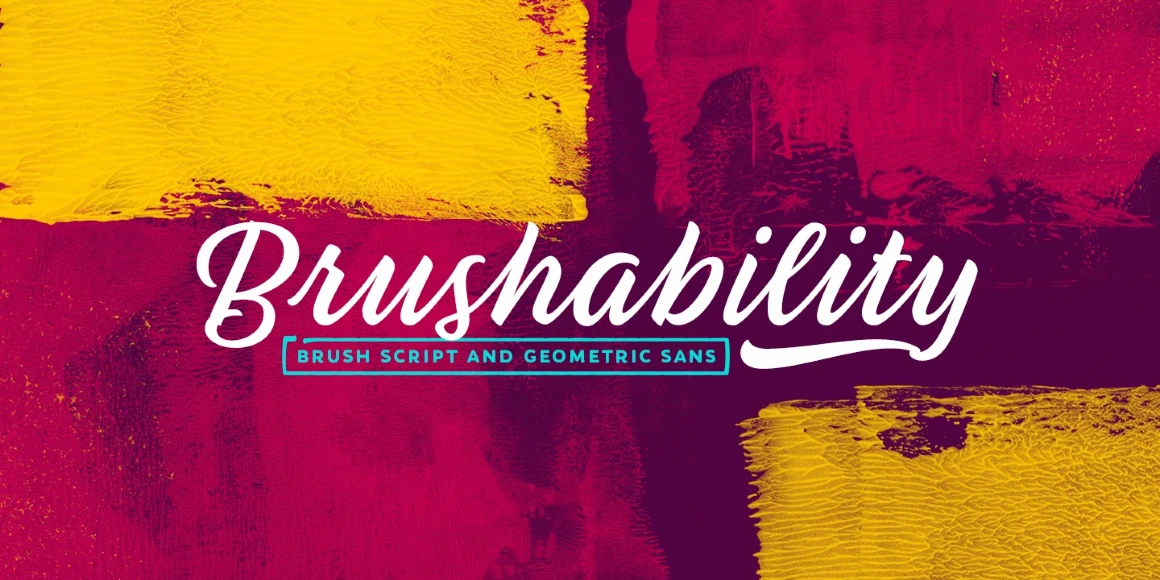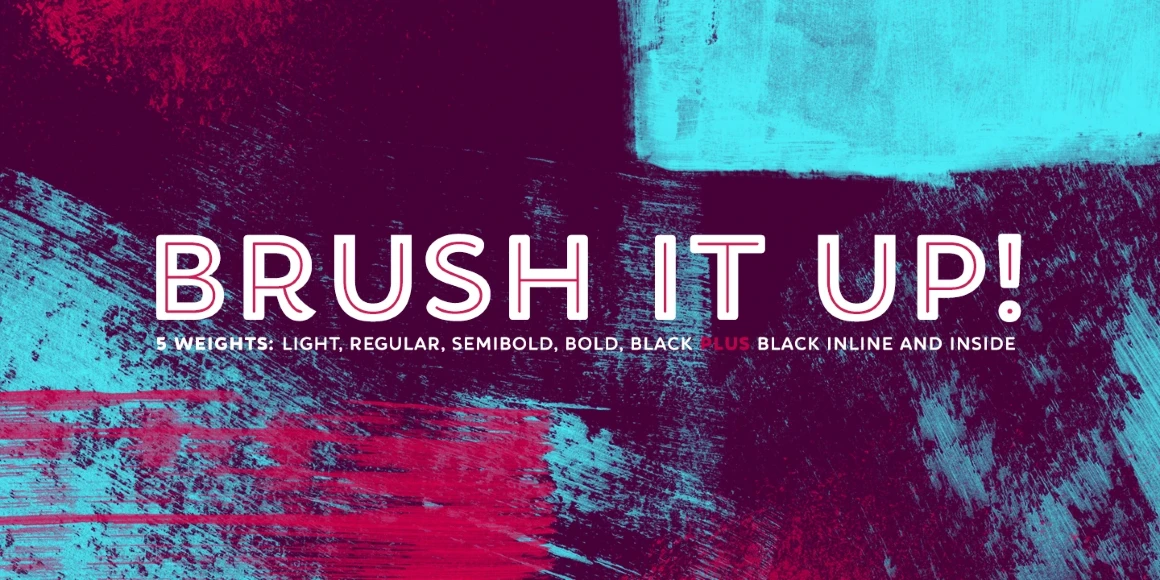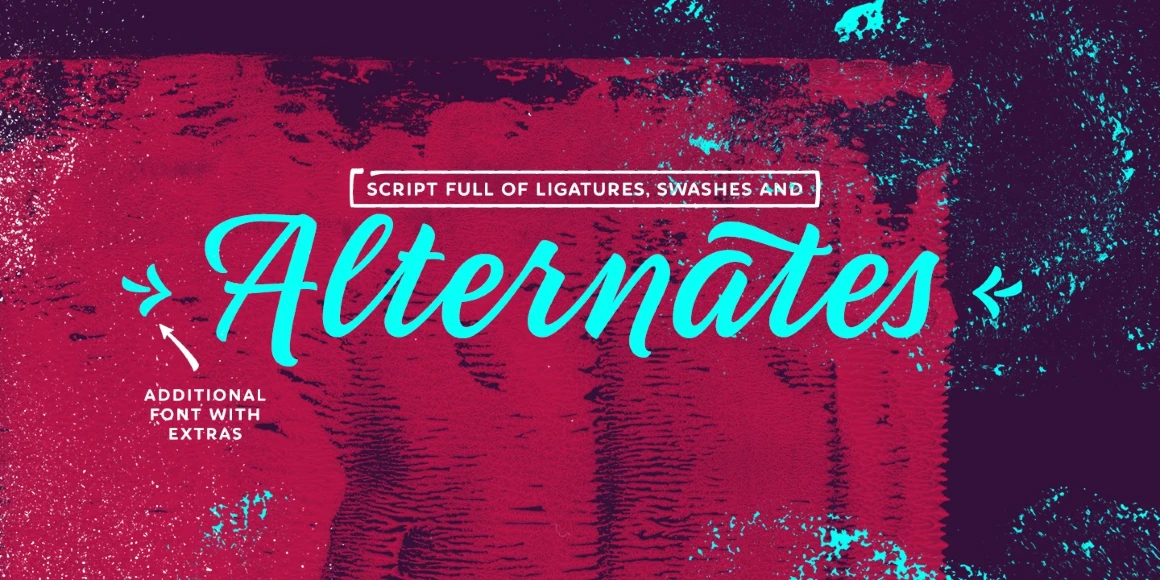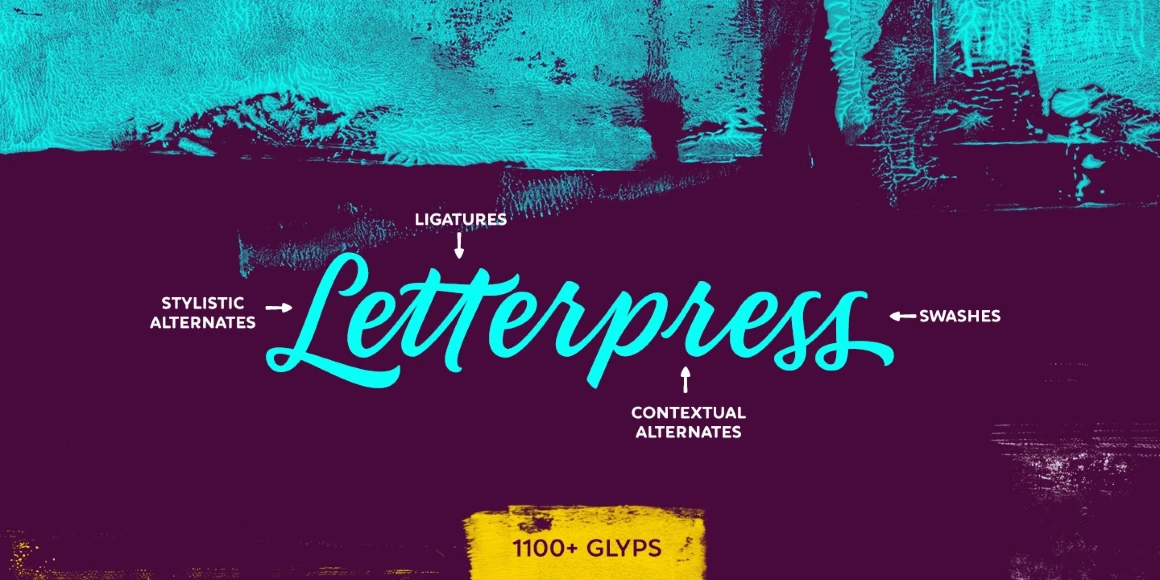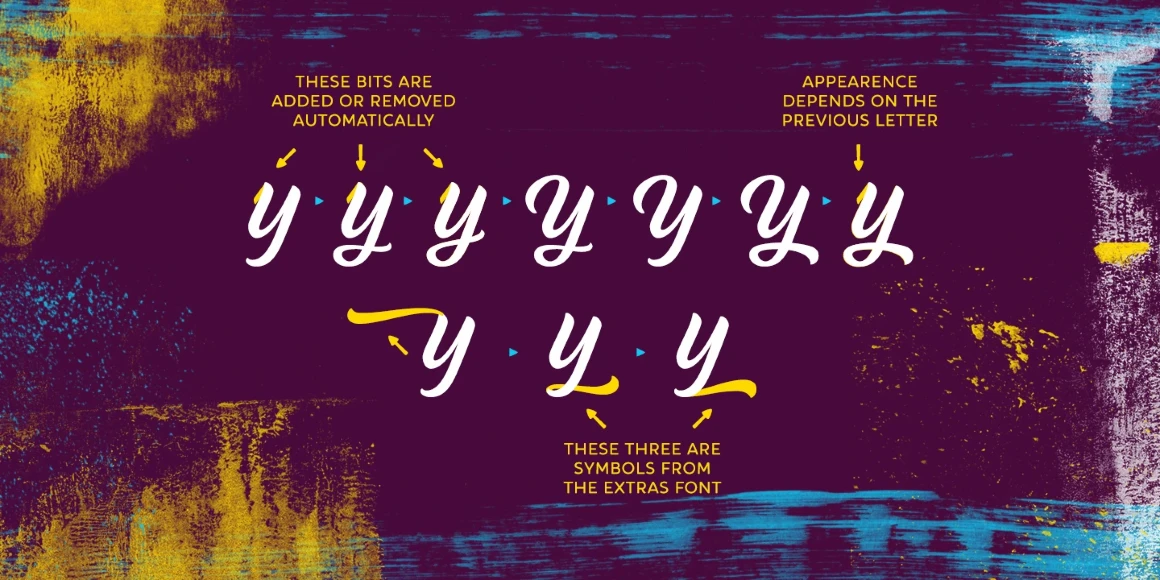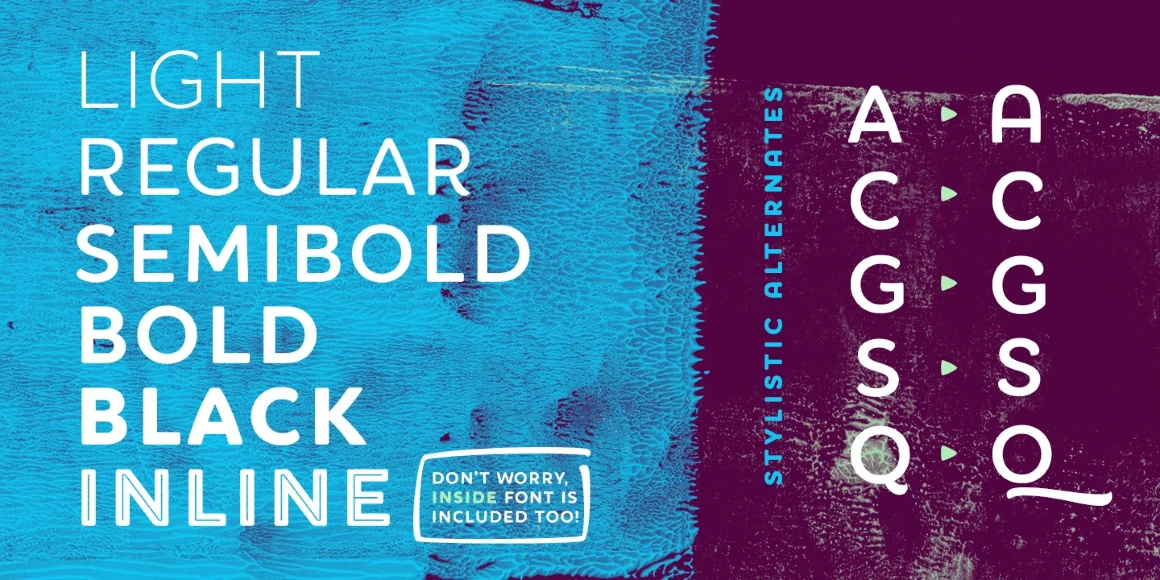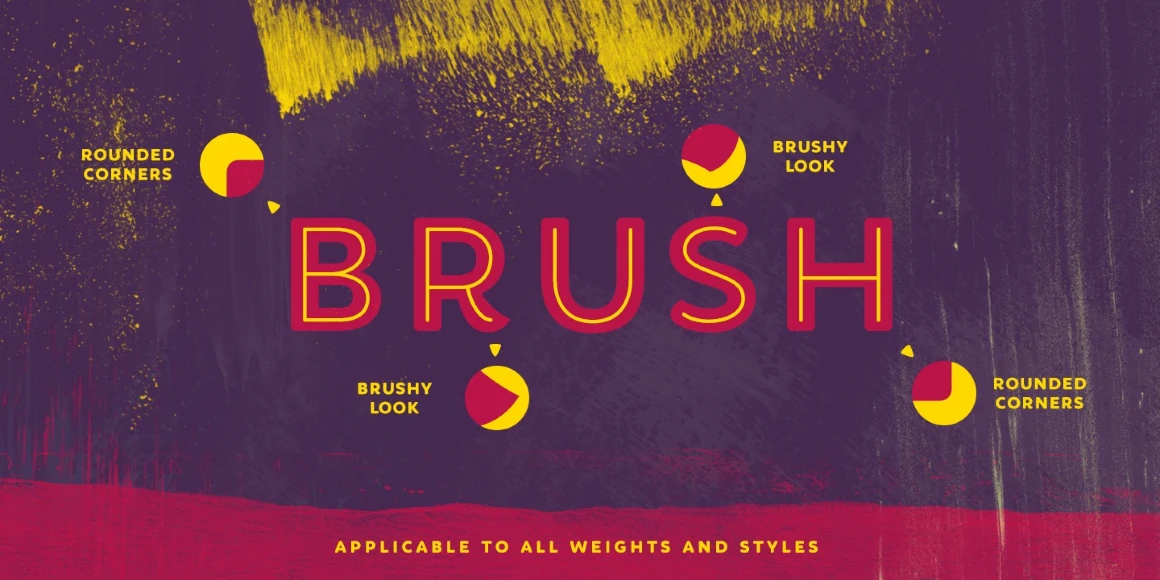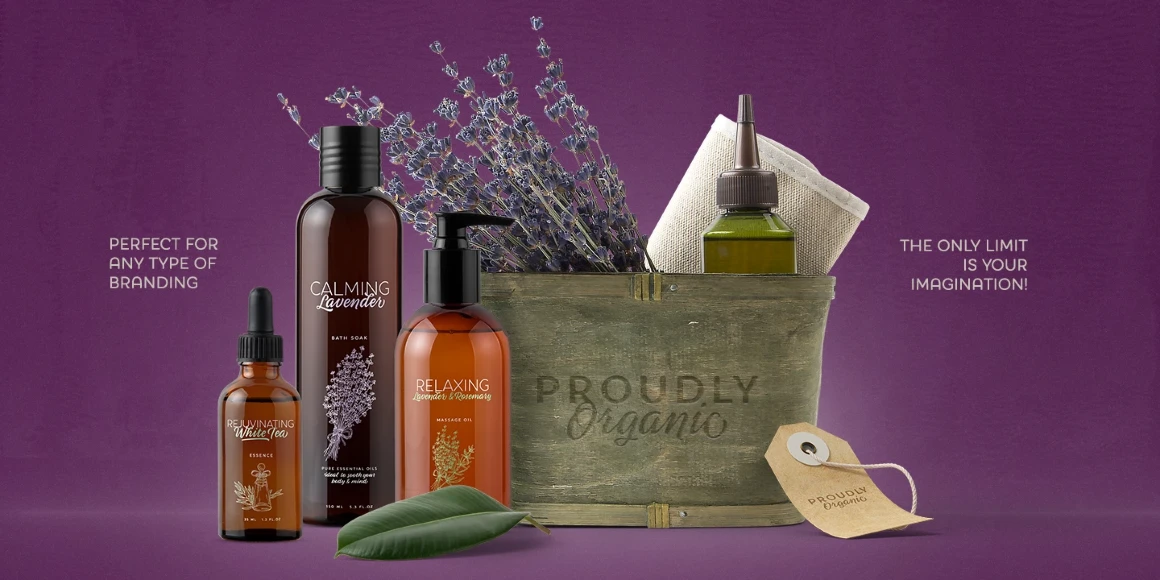
Brushability Script
From My Creative Land
Brushability is a brush-written family that contains 9 fonts, all united by a brushy look. Together, they complement each other perfectly, but they can also be used separately. Brushability Script contains a lot of alternates, swashes, ligatures, and arrows. Brushability Extras was drawn in the same style to add natural personality to your design. All five Brushabililty Sans (from Light to Black) also contain alternate glyphs for certain letters — just to make your design process even more fun.
Designed by Elena Genova
Brushability Script Regular
Brushability Script Extras
Stylistic Set 8
Initial Forms
Final Forms